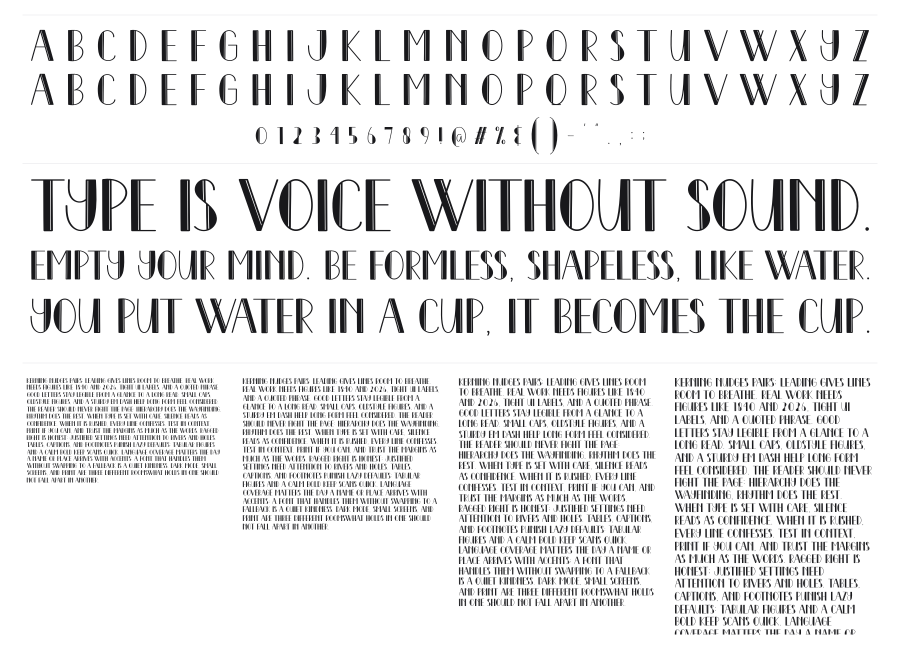
Avanger
Avanger is a tall, condensed Art Deco display face built around a bold inline stripe that splits each thick stem down the middle. The extreme contrast between the heavy verticals and hairline horizontals gives it a distinctly 1920s Hollywood glamour. Strong at large sizes for posters, packaging, and luxury branding.